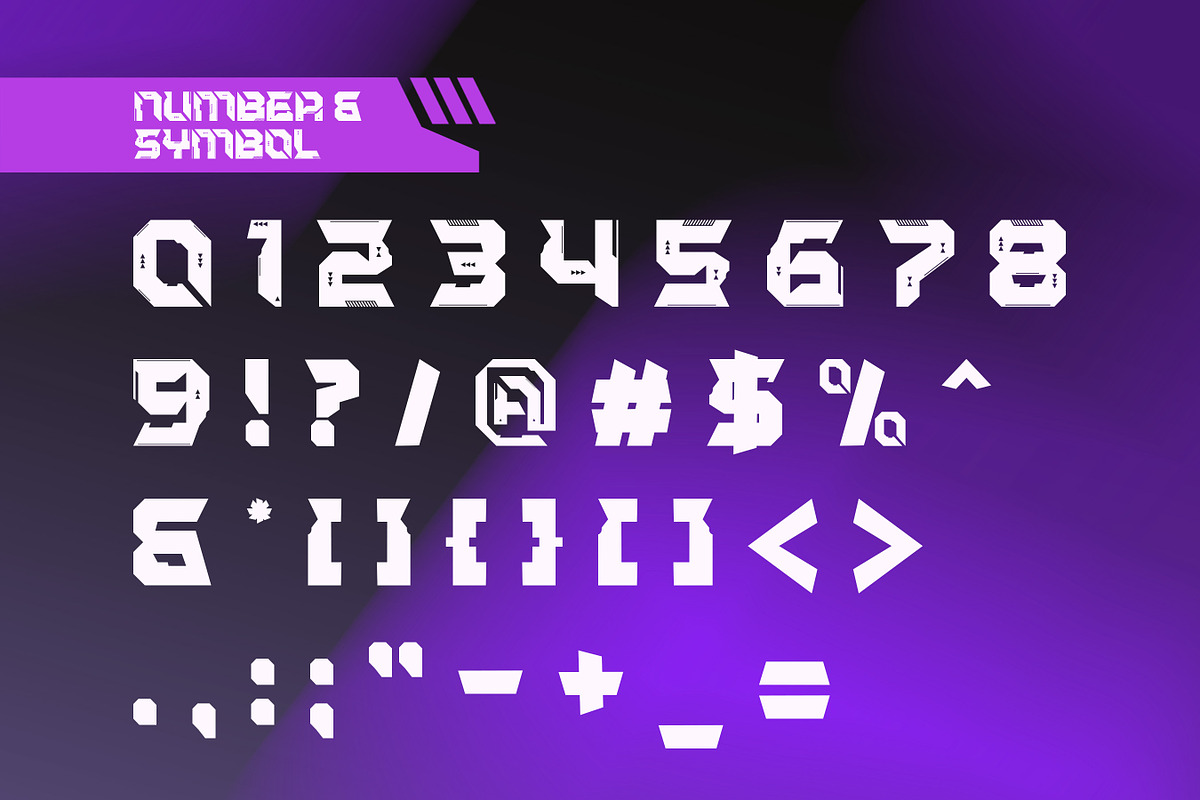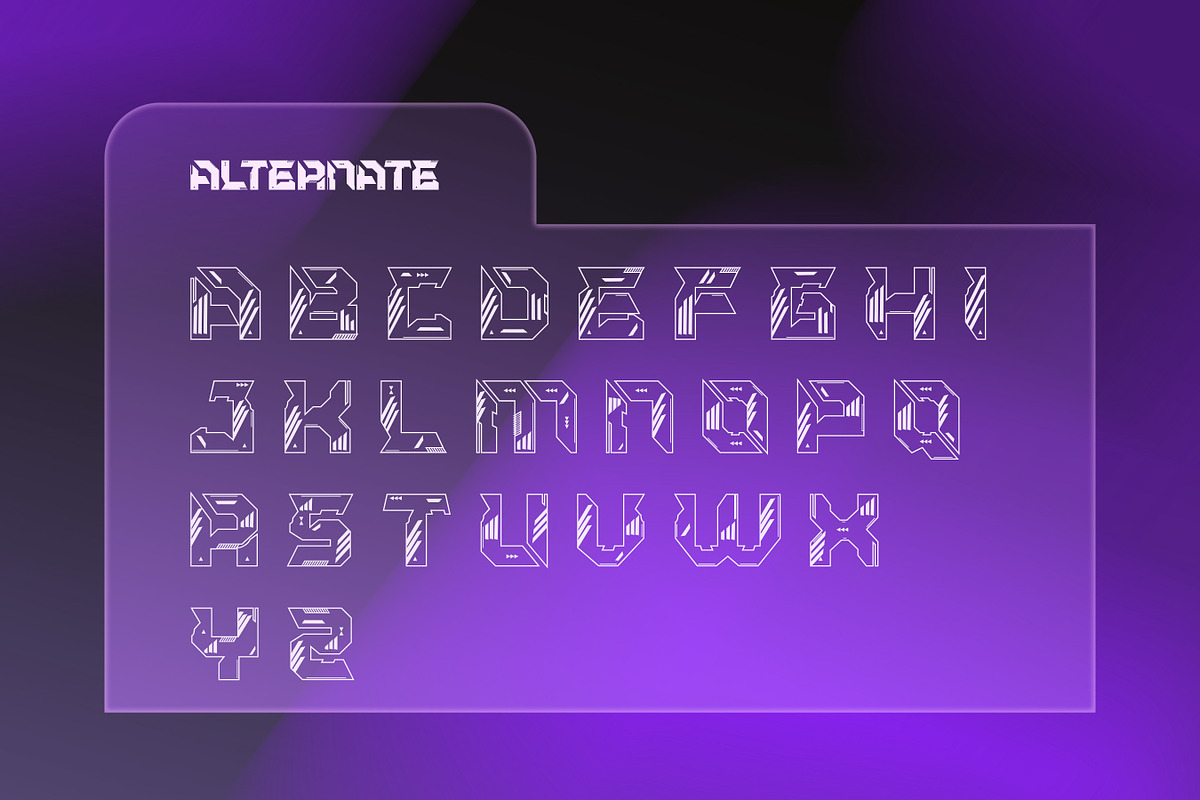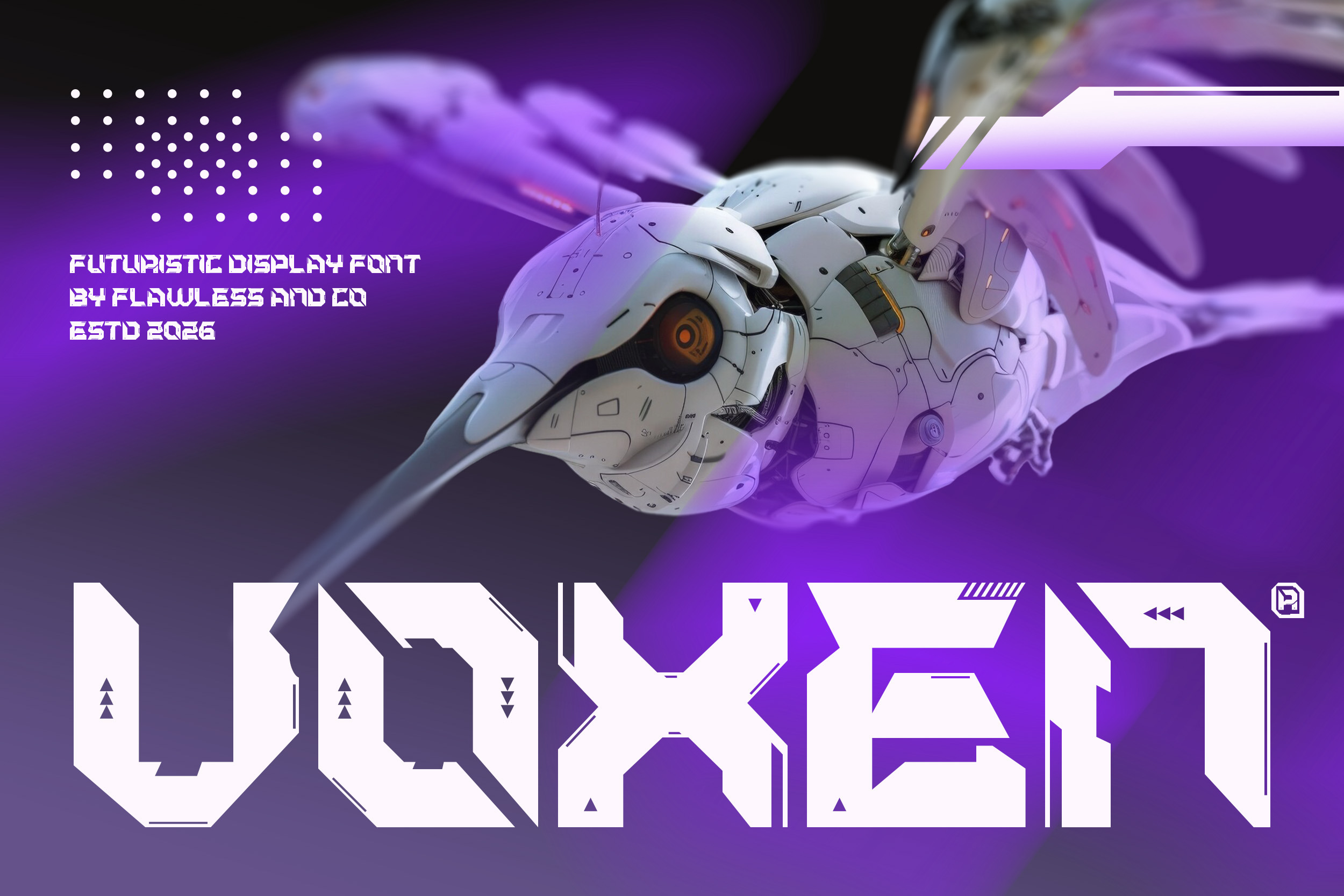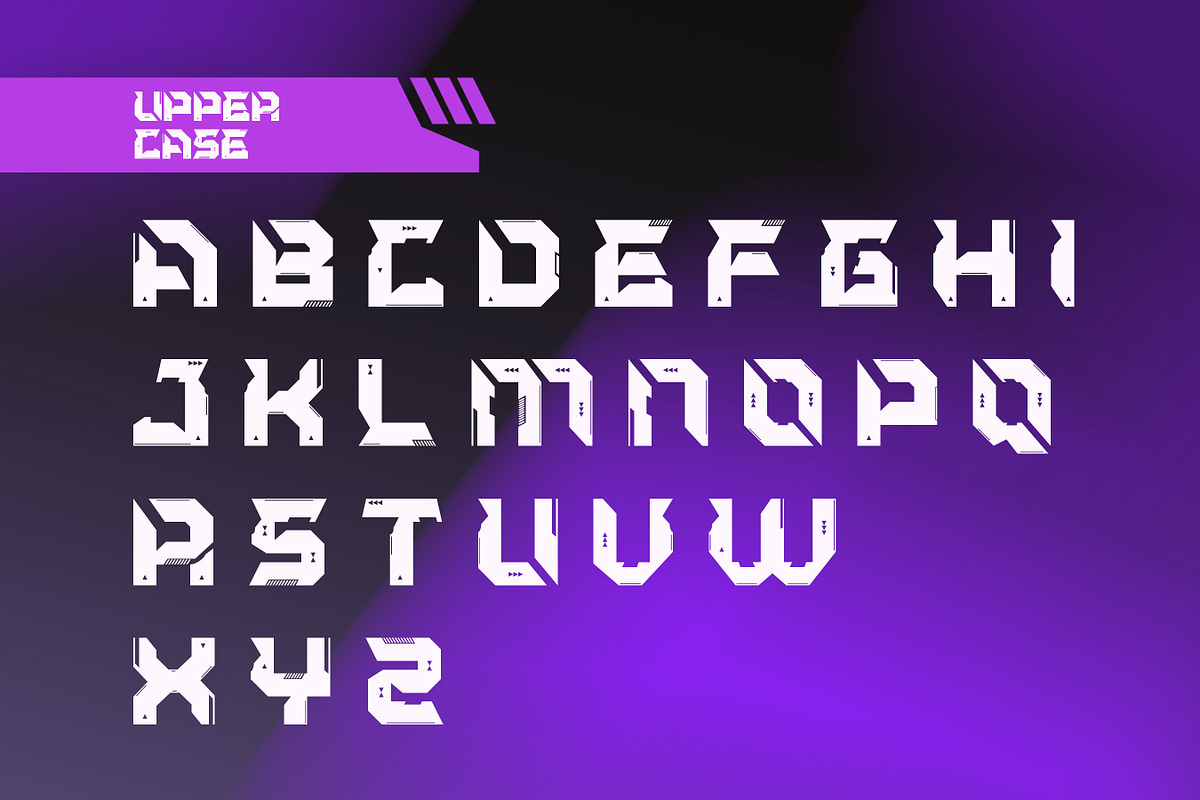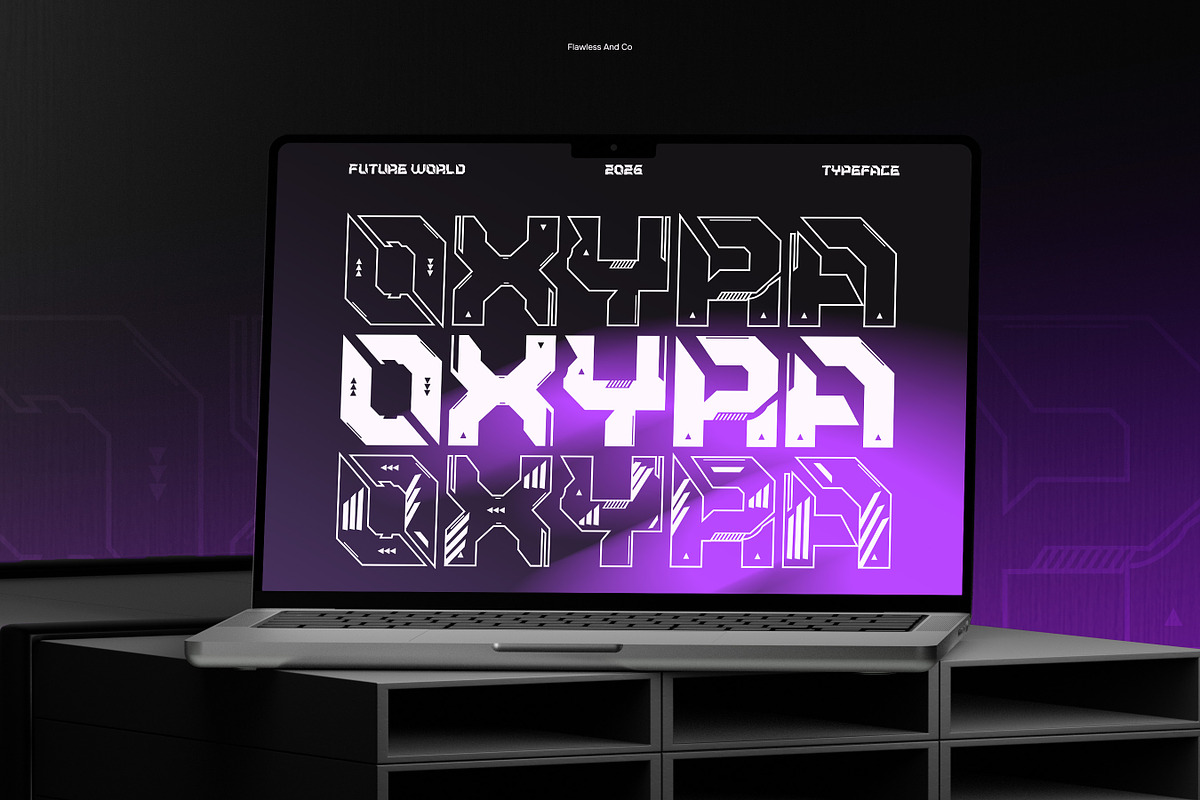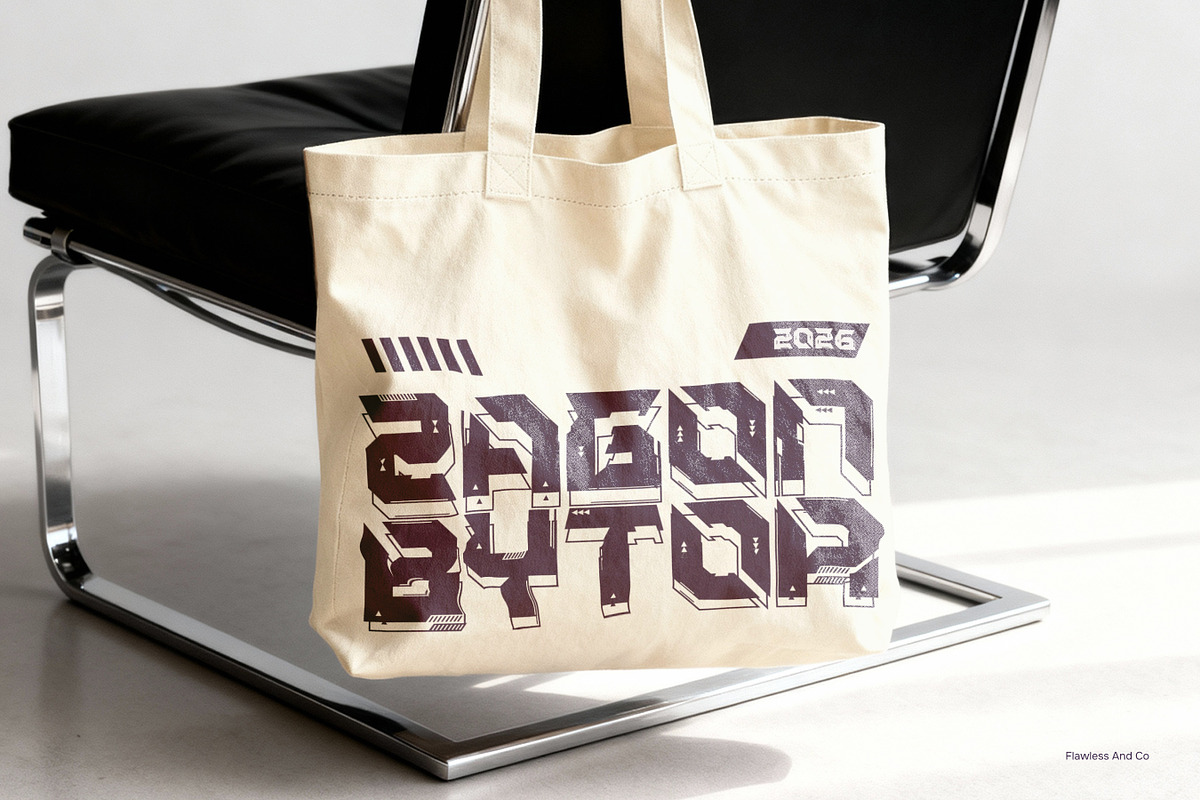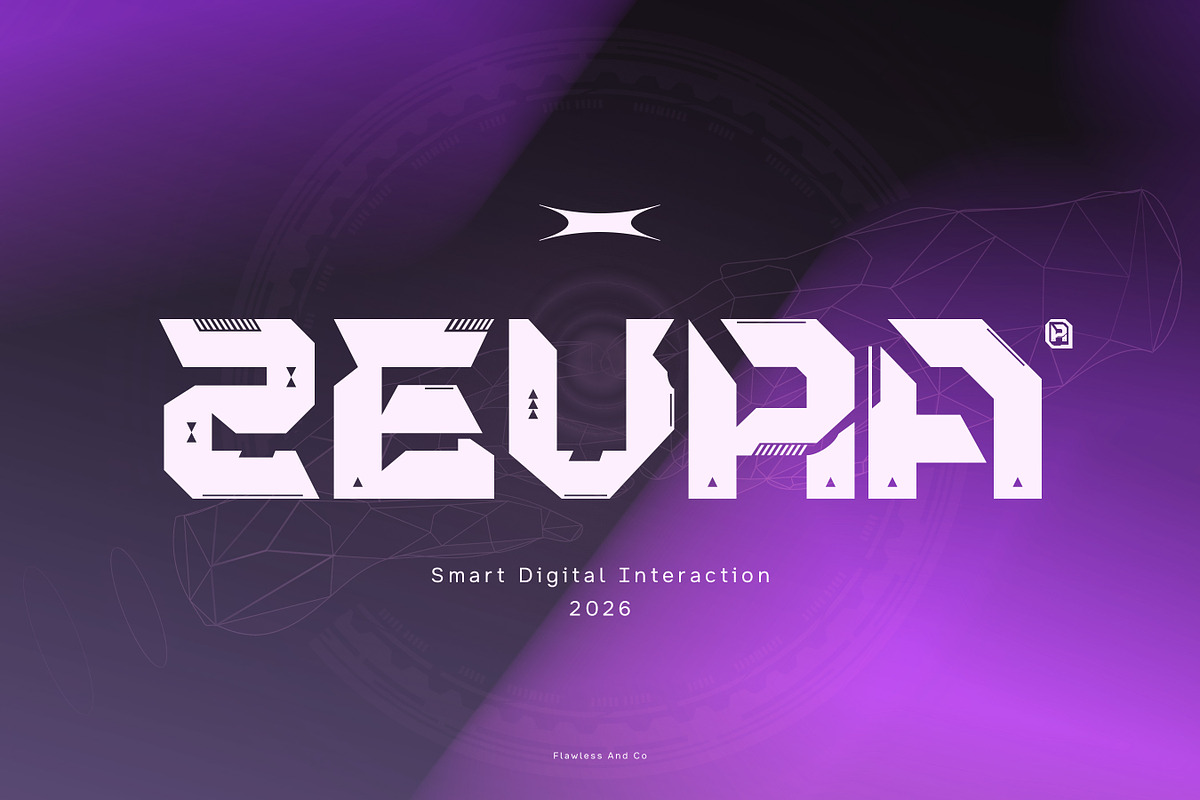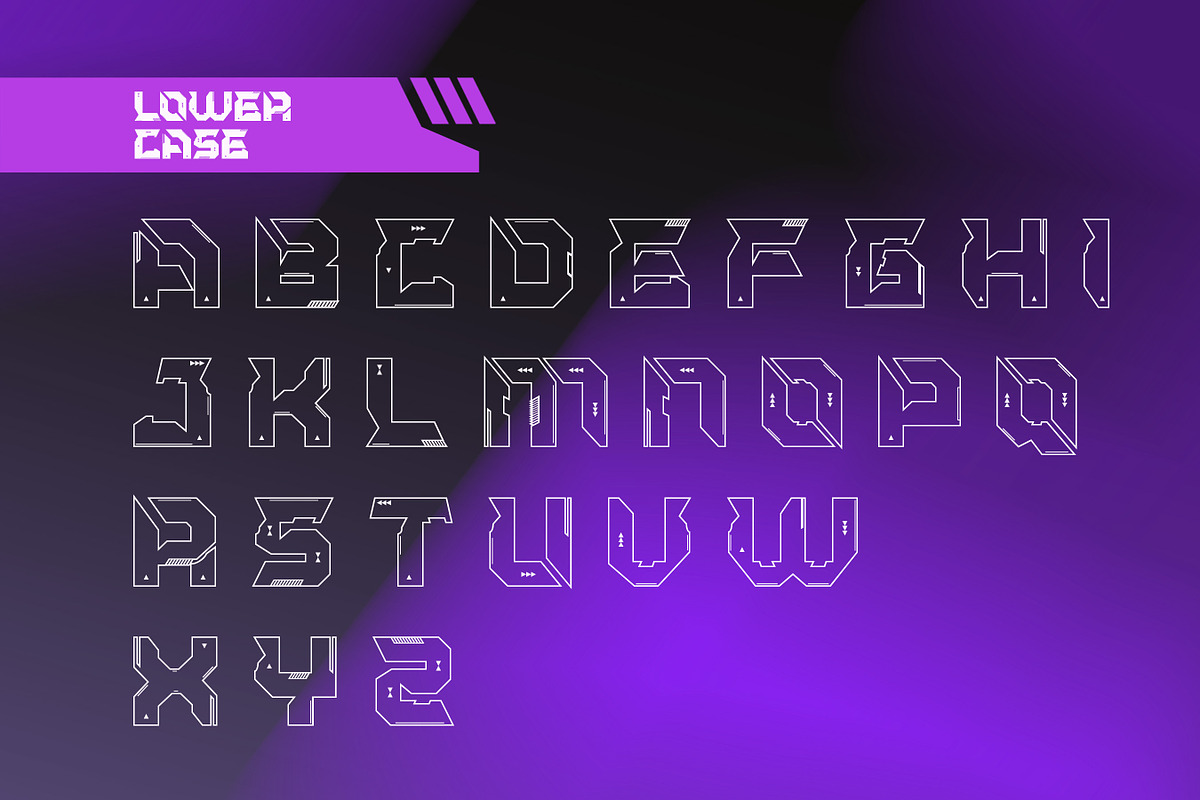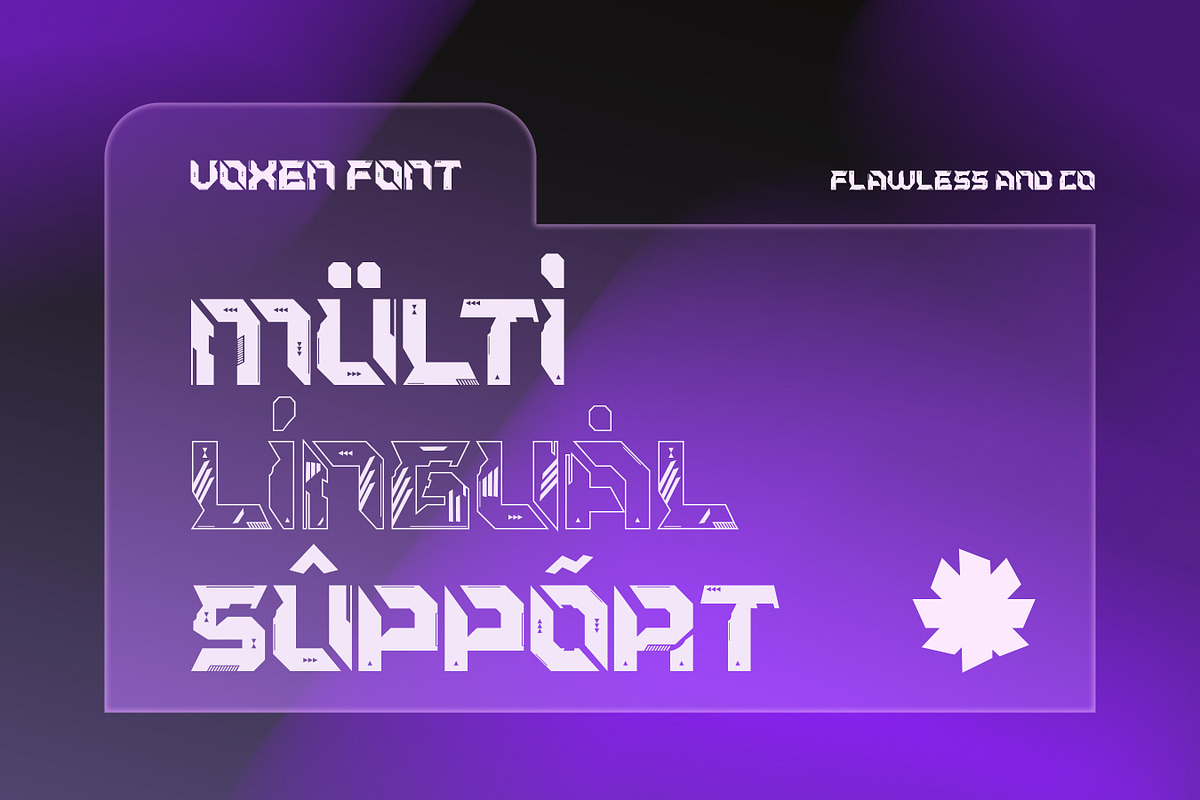
Vexon - Futuristic Display Font
Vexon is a bold futuristic display font designed with sharp geometric shapes, angular cuts, and a high-tech sci-fi aesthetic. Its distinctive letterforms create a powerful visual impact, giving every word a modern, mechanical, and forward-thinking character. With its experimental structure and strong display presence, Vexon is perfect for projects that demand a futuristic edge, from technology and gaming to cyberpunk-inspired branding and digital artwork. Whether you’re creating a striking logo, poster, headline, or promotional graphic, Vexon brings a bold and innovative personality to your designs.
Uppercase & Lowercase Alternates & Ligatures Numerals & Punctuation Multilingual Support
Who Should Use Vexon?
Vexon is perfect for designers and creatives who love futuristic, geometric, and technology-inspired typography. It’s ideal for projects that need a bold visual identity with a sci-fi, digital, or experimental atmosphere.
Suitable For:
Futuristic and technology branding Gaming and esports graphics Sci-fi and cyberpunk designs Tech and digital product branding Logos and brand identities Posters and promotional materials Album covers and music artwork Streaming and social media graphics UI and digital interface concepts Headlines and impactful display typography Apparel and streetwear designs